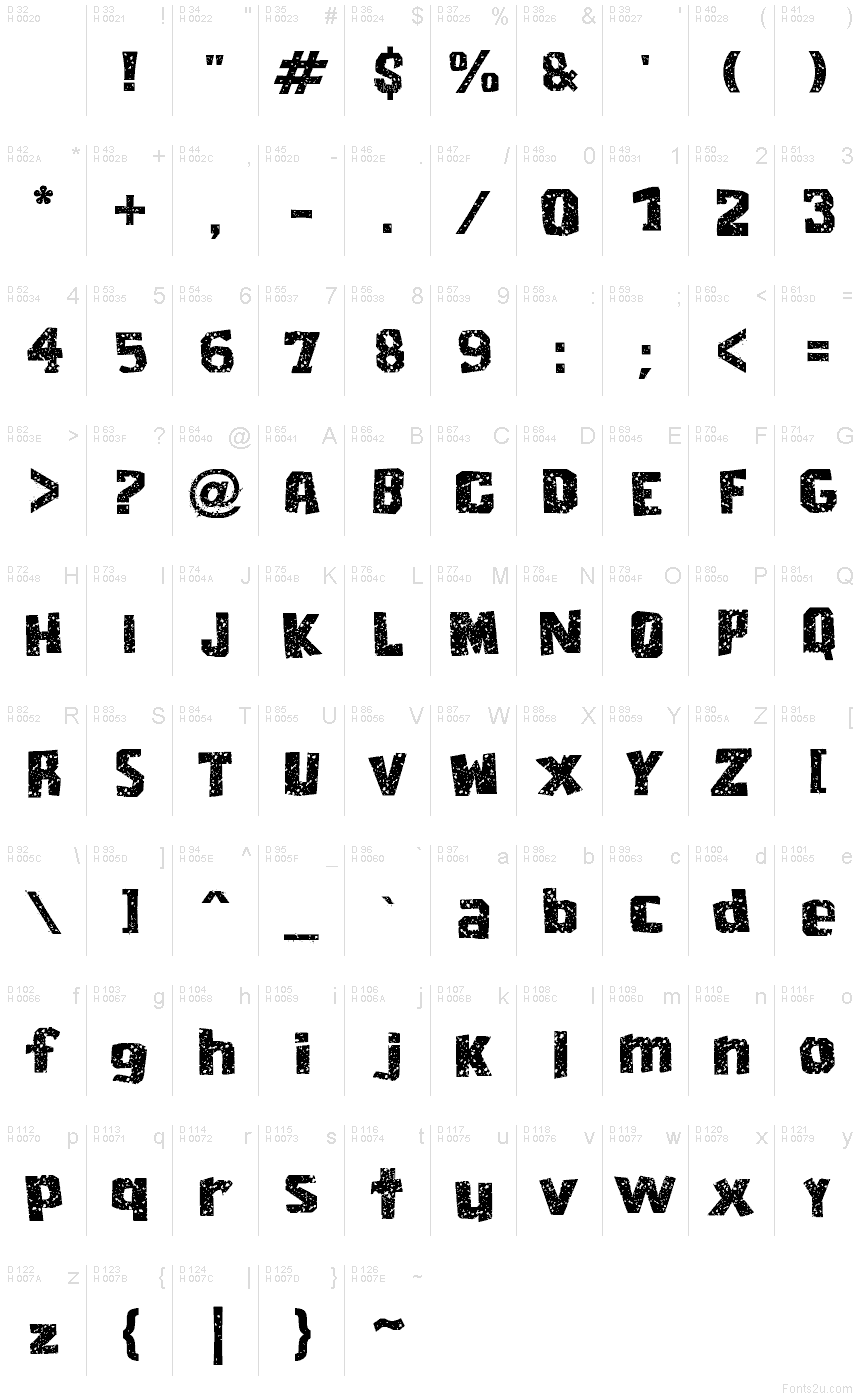
Cordel Encarnado Normal Regular
Cordel Encarnado font is a bold display typeface by Galdino Otten Fonts that delights with its intricate texture and distressed appearance. The vintage flair of this artistic design evokes nostalgia providing an excellent way to capture the interest of the audience in the blink of an eye.
Use this captivating retro-influenced font in posters, invitation cards, flyers, headings, book covers, magazine titles, packaging designs, logotypes or in tattoo illustrations. It can also be applied creatively in videos and animations!